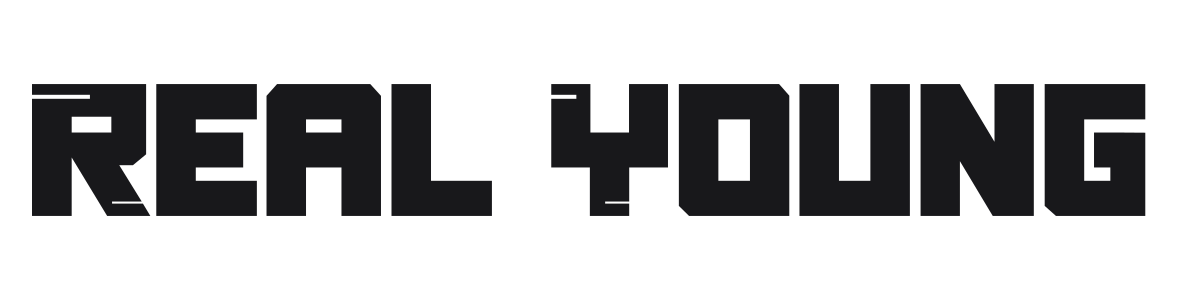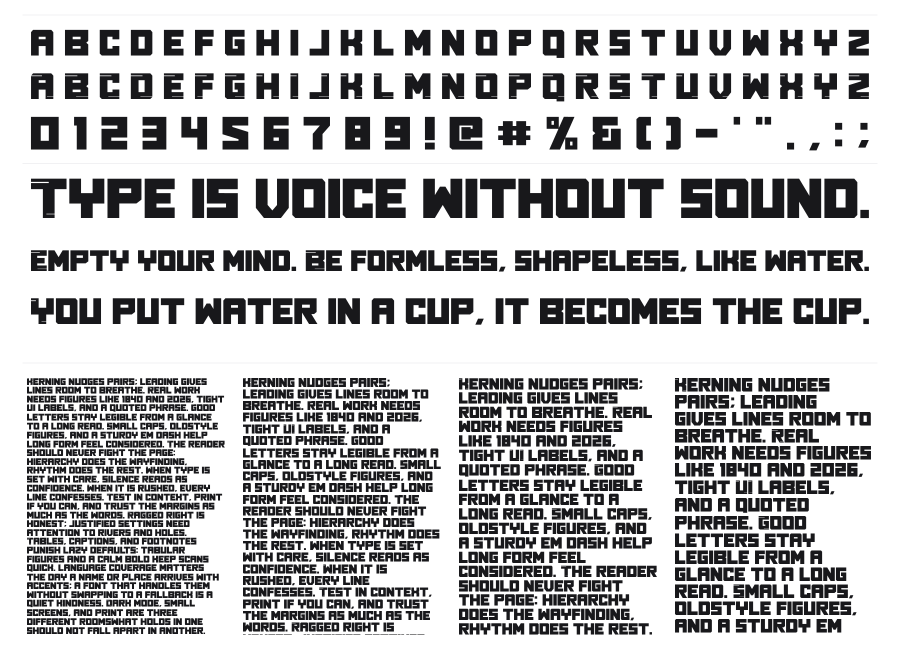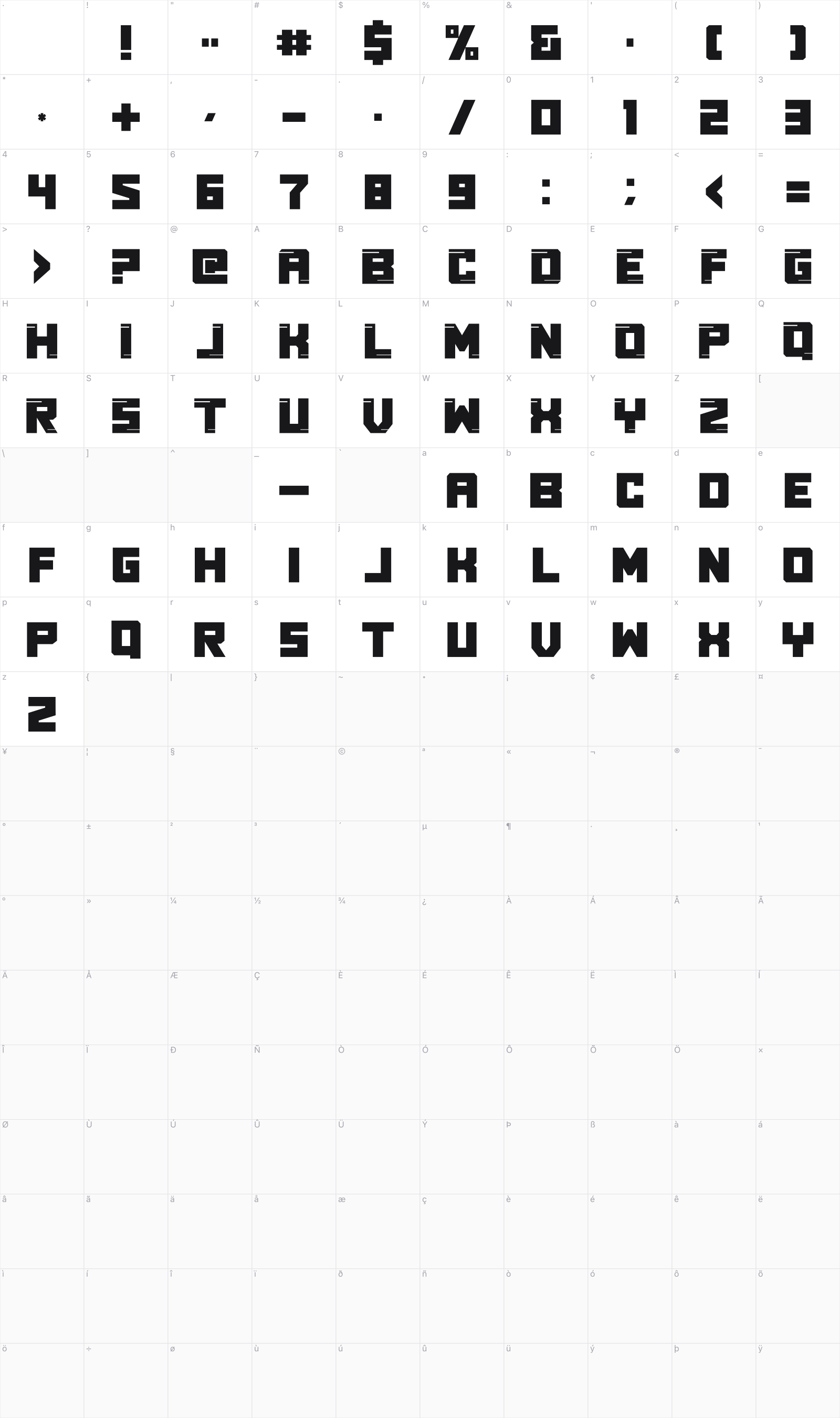
Real Young
Real Young is a heavy square sans-serif built from blocky rectangular forms with sharp notched cuts at stroke joints. The near-monoweight construction and pixel-adjacent geometry give it a gritty digital authority that works well at large sizes for gaming titles, sportswear, and urban branding. It carries real visual weight without relying on decoration.